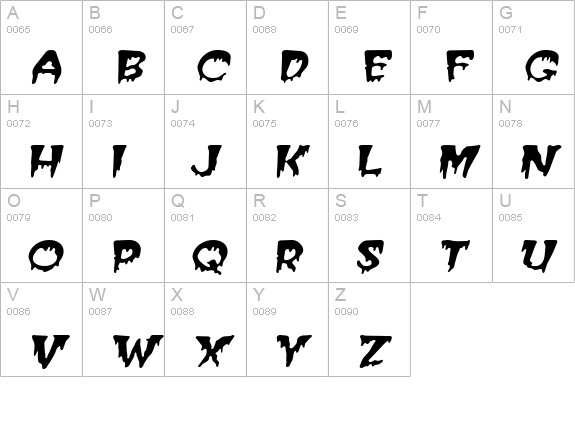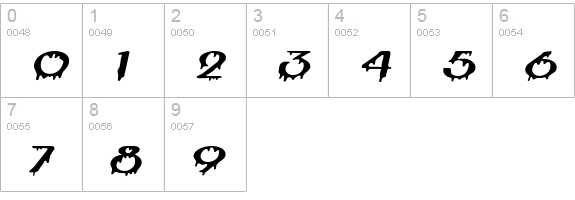
CreepyExtended Italic Font Details
CreepyExtended Italic is a distinctive, italic variant in the CreepyExtended typeface family \xE2\x80\x94 well suited to design and typography projects.
CreepyExtended Italic font is a hauntingly unique typeface that exudes an eerie and unsettling aura. With its twisted and elongated letterforms, this font is perfect for adding a touch of macabre to your design projects. The italicized style adds a sense of unease and unpredictability to the text, making it ideal for horror-themed designs or spooky invitations. What's even better is that CreepyExtended Italic font is available for free download at FontsMarket.com. This means you can easily incorporate this chilling typeface into your projects without any extra cost. Embrace the darkness and give your designs a creepy edge with CreepyExtended Italic font today!